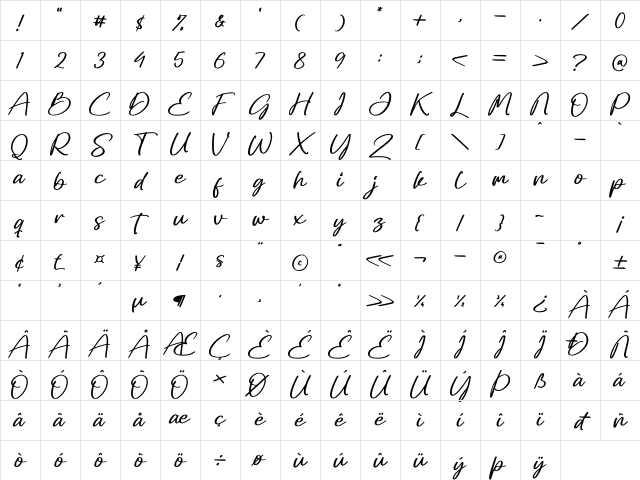
Complete Jacielle Olievera Regular glyph index. Displaying only characters natively supported by Jacielle Olievera Regular font.
Jacielle Olievera is a composed and adaptable typeface that performs quietly and consistently across a wide range of design contexts.